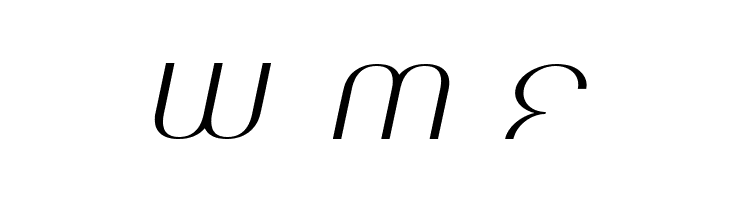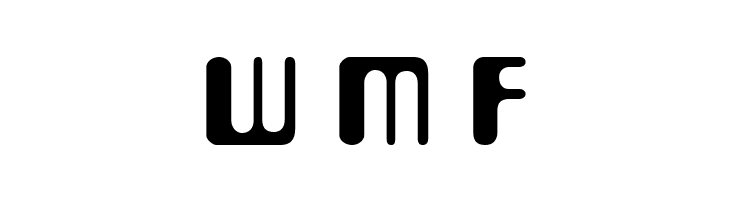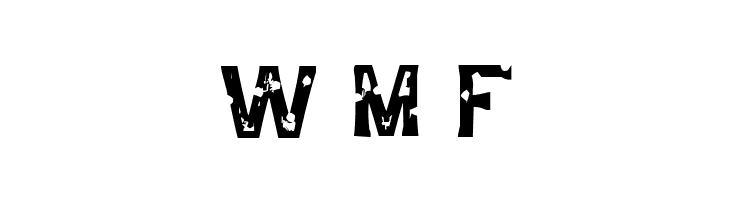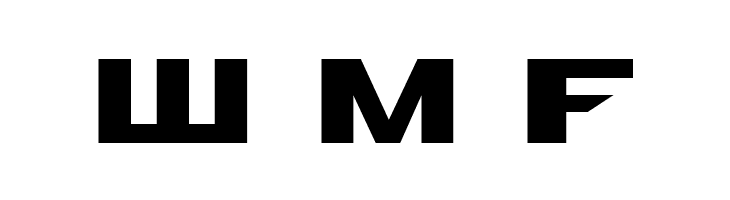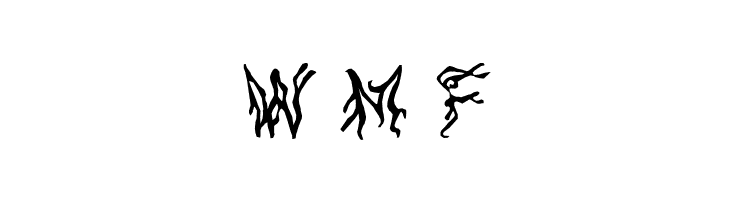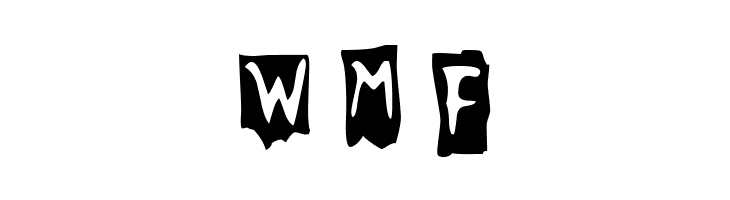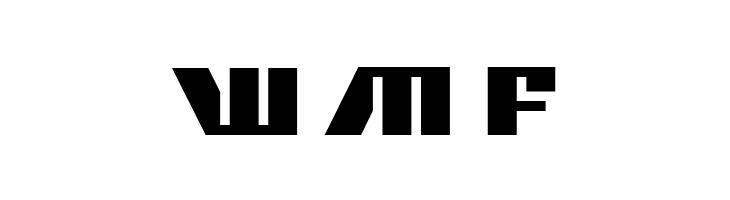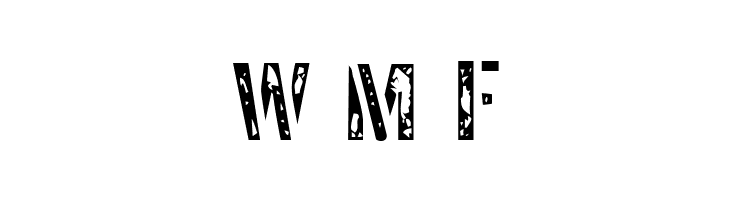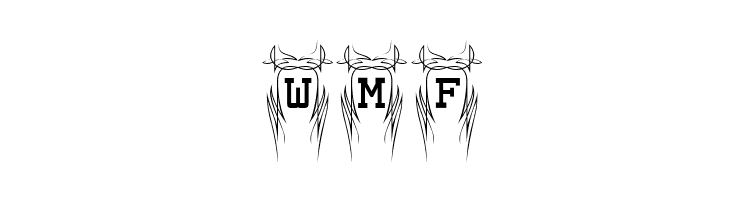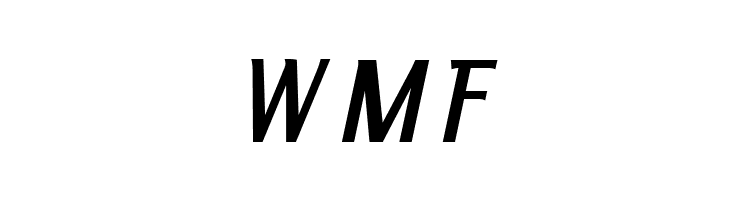
A dynamic, futuristic font with sharp, angular lines and a slanted orientation.
A modern, slanted font with smooth curves and a sleek, futuristic style.
A bold, rounded font with a modern and playful aesthetic.
A bold, angular font with a futuristic and geometric style.
A bold, futuristic font with geometric and modern elements.
A futuristic, geometric font with sharp angles and outlined characters.
A futuristic, geometric font with sharp angles and clean lines.
A futuristic font with a striped, geometric design ideal for tech and creative projects.
A futuristic, italicized font with sharp angles and a sleek design.
A bold, geometric font with playful and dynamic character designs.
A bold, playful font with a shaded, three-dimensional effect.
A bold, vintage-style font with thick, irregular strokes and a handcrafted look.
A bold, striped, and geometric font with a playful and modern style.
A decorative font featuring vintage car illustrations for each character.
Automotive-themed decorative font with car and truck illustrations.
A bold, condensed font with high contrast and a modern, distorted style.
A bold, rounded font with a modern and slightly retro style.
A bold, industrial font with a distressed, concrete-like texture.
A bold, geometric font with strong angles and high contrast, ideal for impactful designs.
A dot-based, pixelated font with a retro digital display aesthetic.
A bold, rounded font with a modern and playful style.
A bold, rounded, and italic font with a modern and dynamic style.
A bold, geometric font with a modern, angular design.
A bold, geometric font with a modern and robust design.
A chaotic and decorative font with jagged, energetic characters.
A bold, modern font with an industrial and futuristic aesthetic.
A bold, distressed font with a grunge-like, artistic style.
A bold, geometric font with angular lines and a modern, industrial feel.
A bold, geometric font with a condensed and modern style.
A bold, decorative font with a distressed, interstellar theme.
A bold, geometric font with decorative tribal-style frames.
A bold, dynamic font with a strong presence and unique character.
A dynamic italic serif font with sharp serifs and a forward-leaning style.